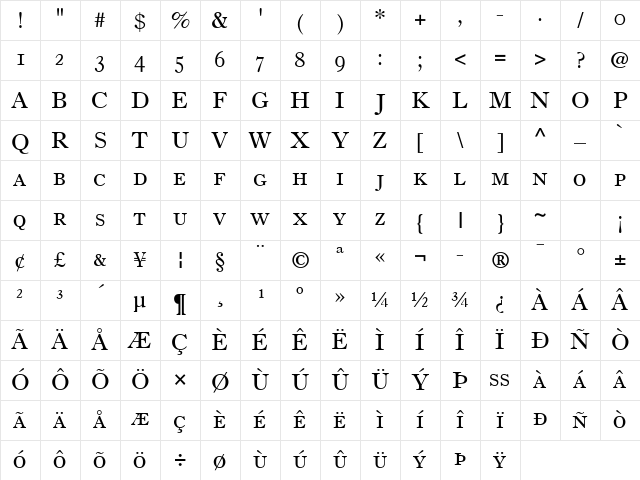
OldStyle 7 SC Regular
Design Context for OldStyle 7 SC
OldStyle 7 SC carries the refined structure of traditional serif typography, with bracketed terminals and considered proportions that communicate credibility and craft.